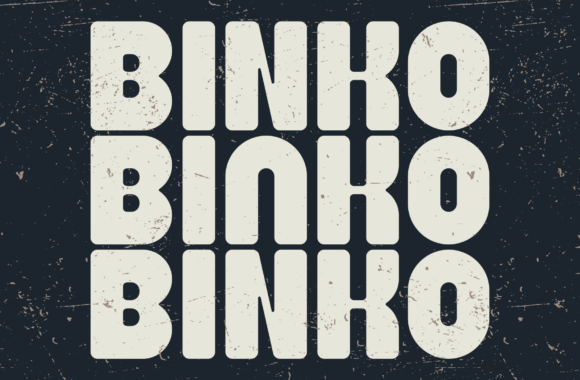
The Binko Font: A Modern Display Font with a Retro Twist
I’ll never forget the struggle I faced while working on a project that required a bold, eye-catching font. My client wanted a typography style that would grab attention and convey a playful yet strong tone. After scouring through numerous font libraries, I stumbled upon the Binko font, and it instantly became my go-to choice. In this article, I’ll share my experience with the Binko font, its features, and how to make the most of it in your designs.
What Makes Binko Font Special?
Binko is a modern display font that draws inspiration from retro aesthetics. Its extra-thick weight and rounded rectangular shape give it a unique and captivating appearance. The letters are rendered with a uniform stroke width and gentle curves, creating a soft yet strong visual impact. This font is perfect for headlines, posters, logos, and typographic compositions that aim to immediately grab attention.
Honest Review: What I Love and What I Don’t
• āœ… High readability at large sizes, making it ideal for display purposes
• āœ… Unique and unexpected details in characters like ā€œR,ā€ ā€œQ,ā€ and ā€œGā€ that add personality
• āœ… Soft yet strong visual impact due to its rounded rectangular shape and uniform stroke width
• āœ… Conveys a playful and engaging tone, perfect for designs that require a fun vibe
The Not-So-Good Stuff šŸ¤”
• āš ļø May not be suitable for body text or small font sizes due to its bold nature
• āš ļø Limited use of OpenType features, which might be a drawback for some designers
The Story Behind Binko Font
The Binko font was designed with the intention of creating a modern display font that pays homage to retro aesthetics. The designer aimed to craft a font that would convey a playful yet strong tone, making it perfect for headlines, posters, and logos. Inspired by the geometric shapes and bold typography of the mid-century era, Binko was born as a unique and captivating font.
Font Name Binko Font
Author Razetype
Q: What is the Binko font best used for?
A: The Binko font is best used for display purposes, such as headlines, posters, logos, and typographic compositions that aim to grab attention.
Q: Is the Binko font suitable for body text?
A: No, the Binko font is not suitable for body text due to its bold nature. It’s best used for display purposes where a strong visual impact is desired.